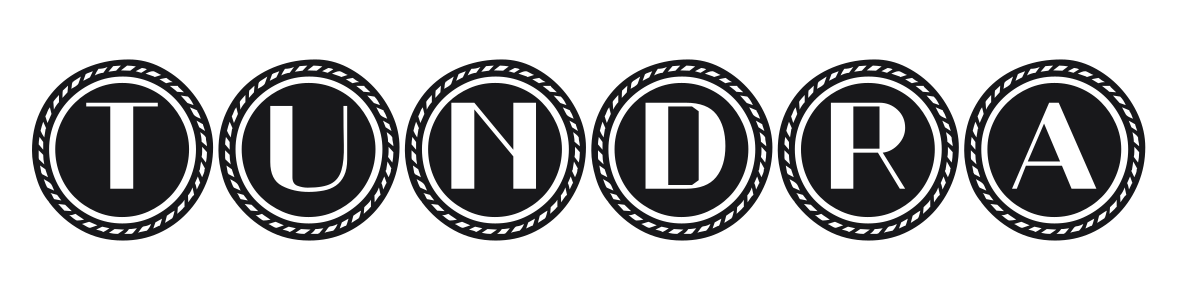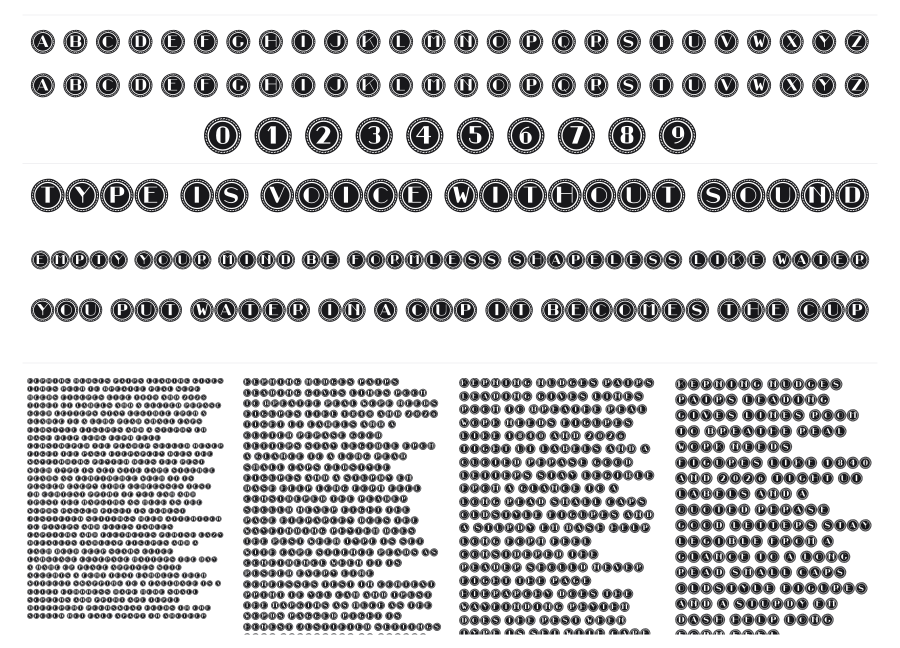
Tundra
Tundra encloses every character inside a circular badge frame with a dotted outer ring, turning the alphabet into a row of bold medallions. The white serif letters on black circles create sharp, graphic contrast that works well in stamped or embossed-style designs. It suits packaging, signage, and branding projects that need a vintage badge aesthetic.